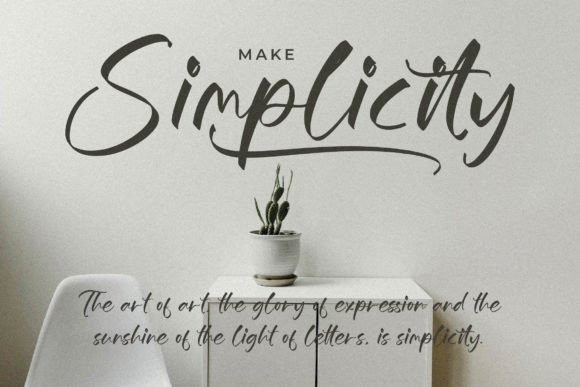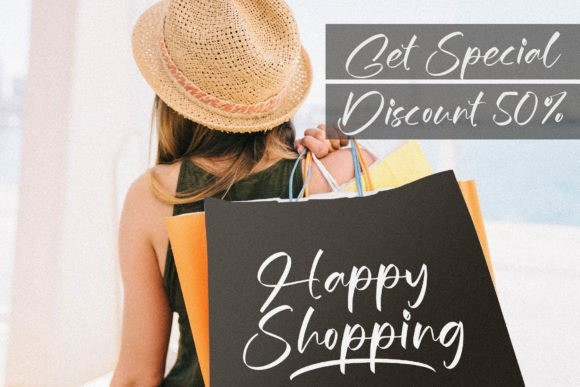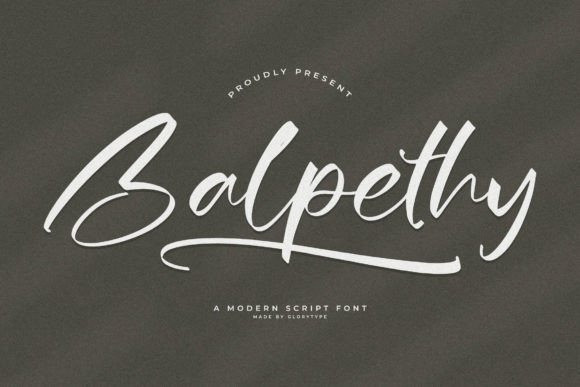
Balpethy Font
Balpethy – Modern Script Font, from Glorytype Studio, suitable for any projects such as: logos, branding projects, homeware designs, product packaging, mugs, quotes, posters, shopping bags, t-shirts, book covers, name card, invitation cards, greeting cards, label, photography, watermark, special events, and all your other lovely projects that need a beautiful script taste.